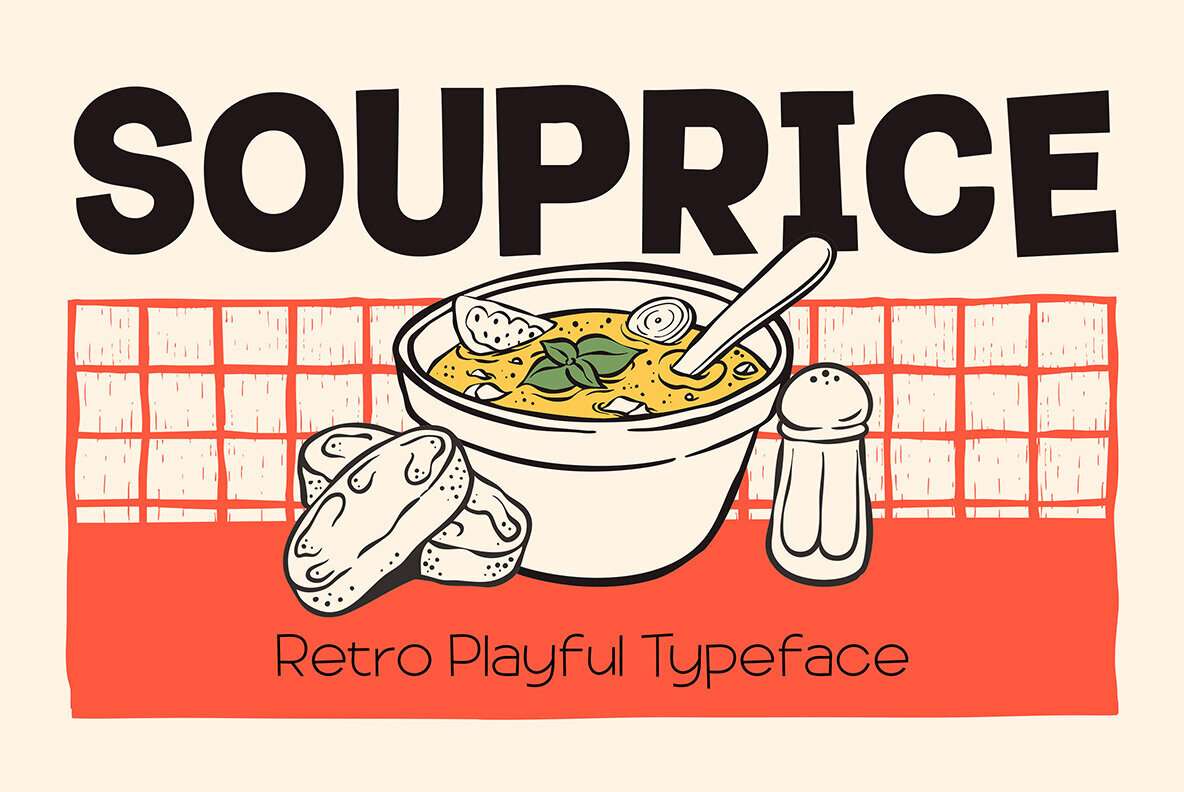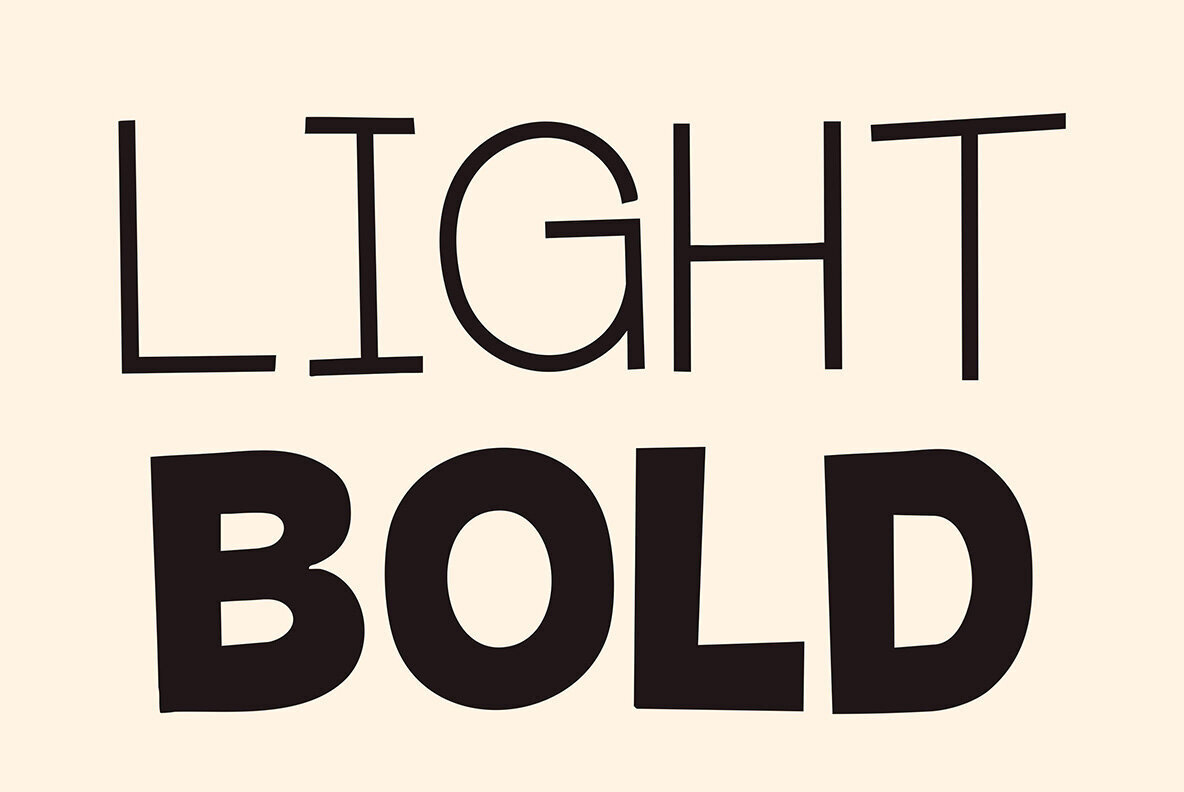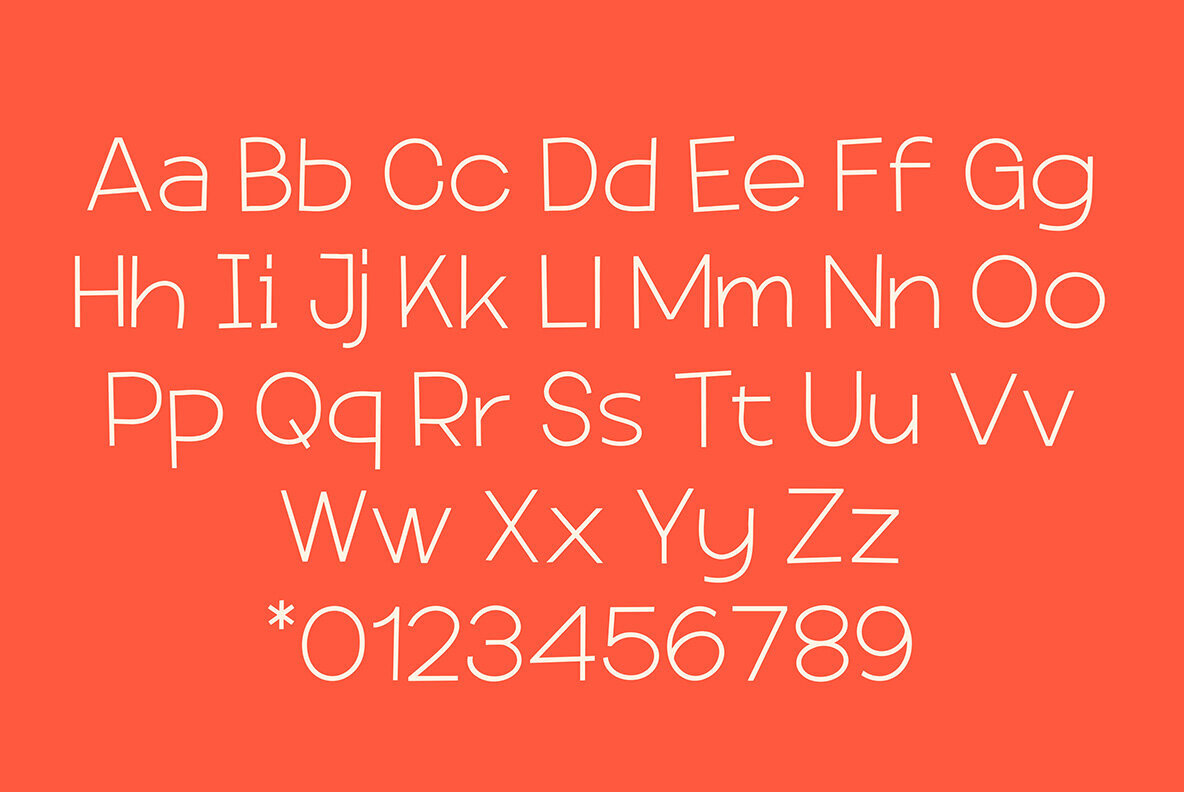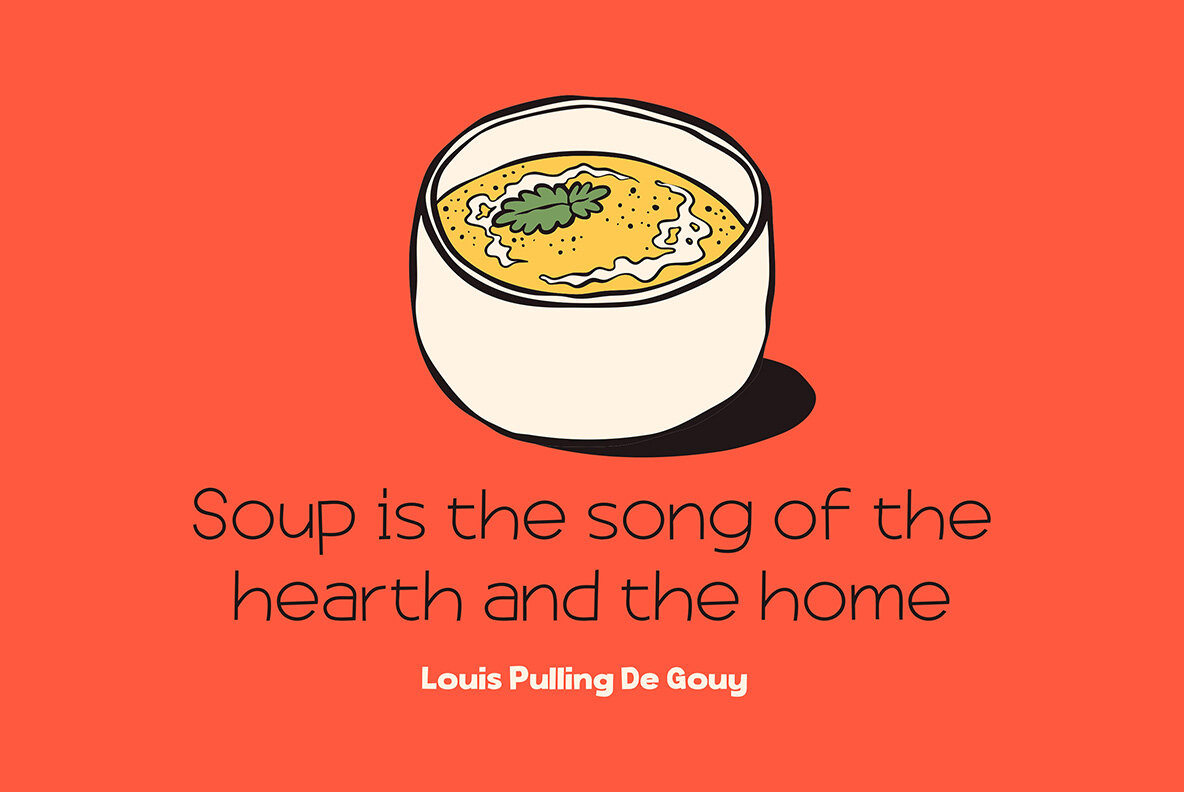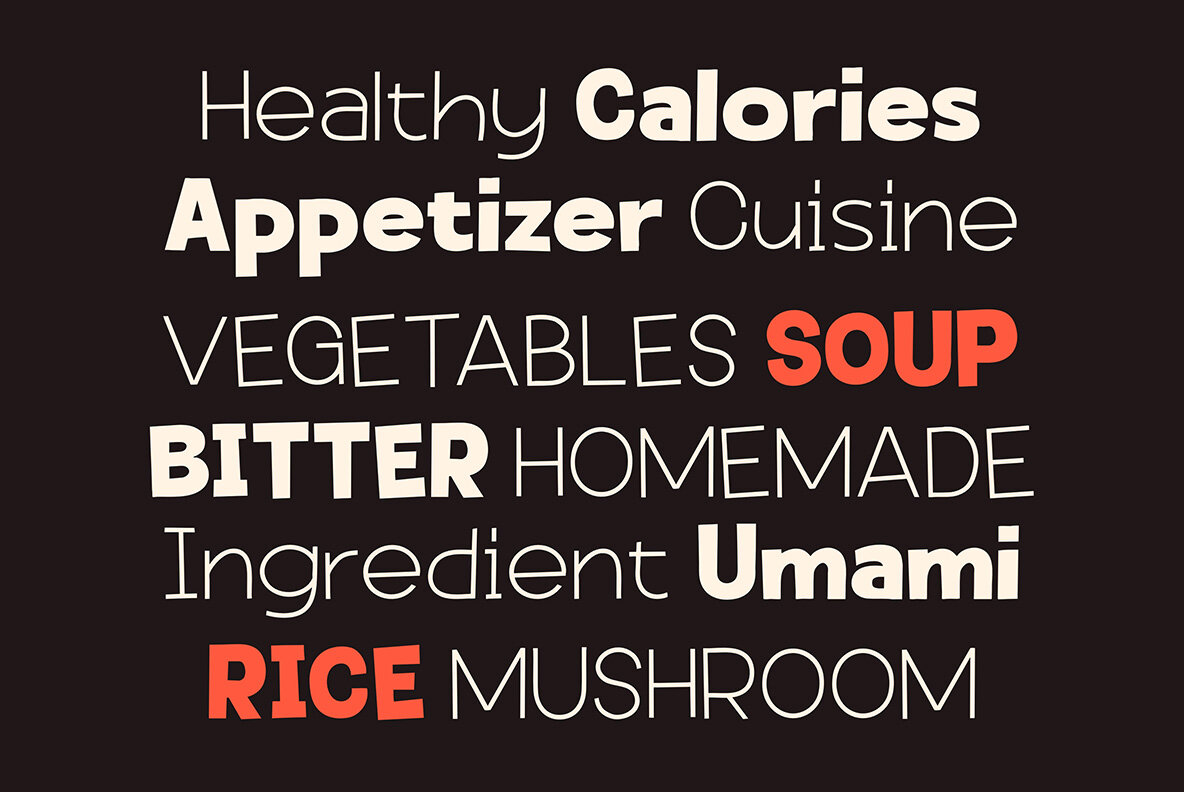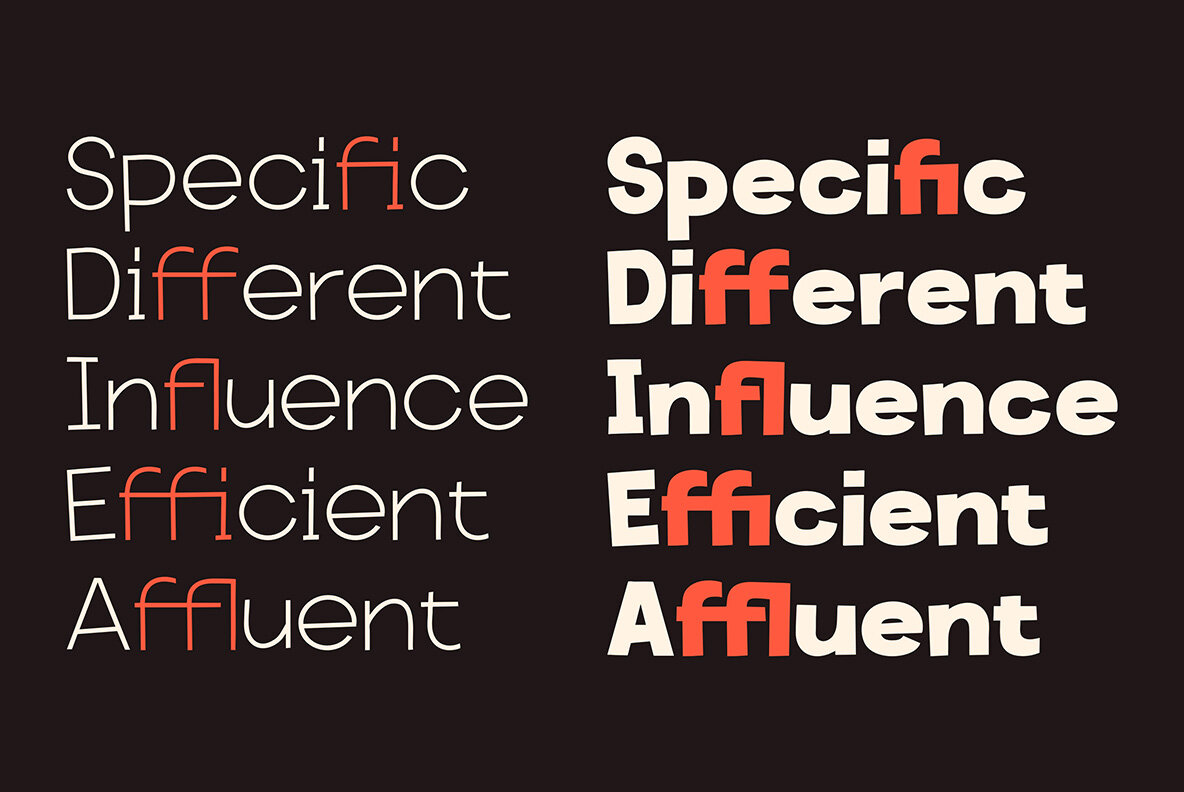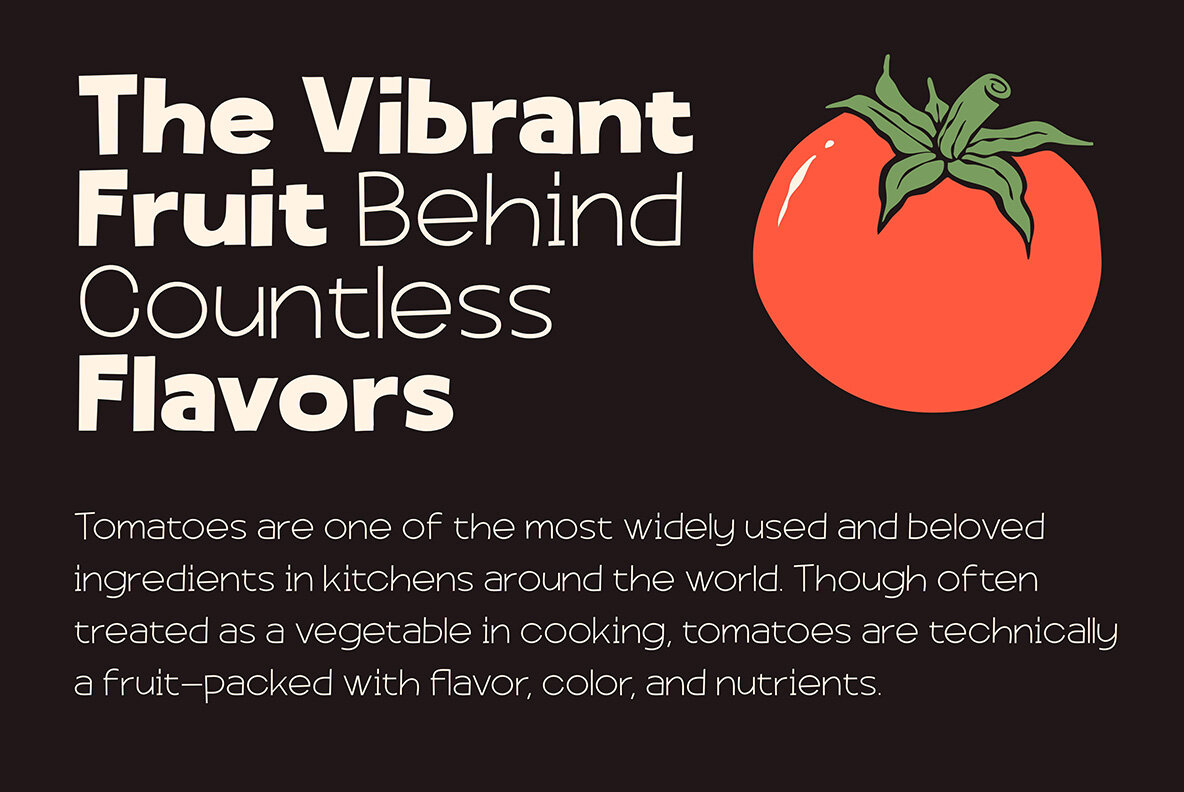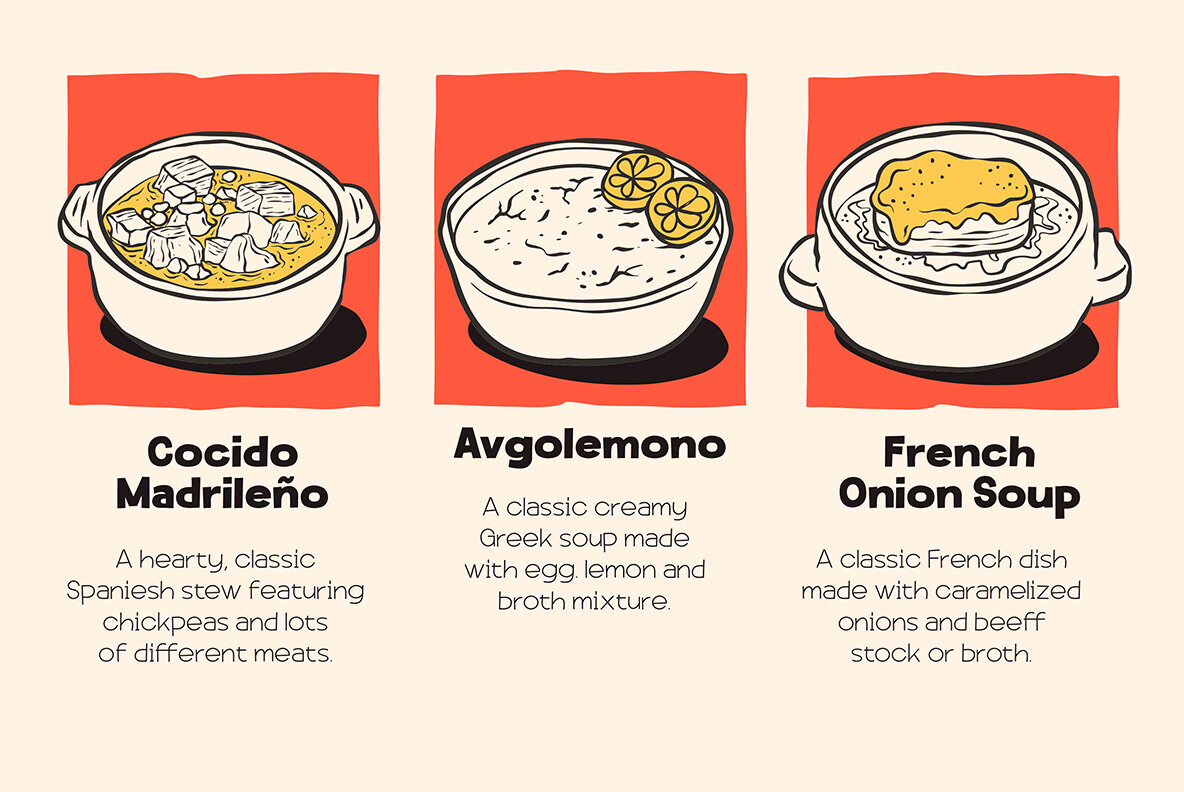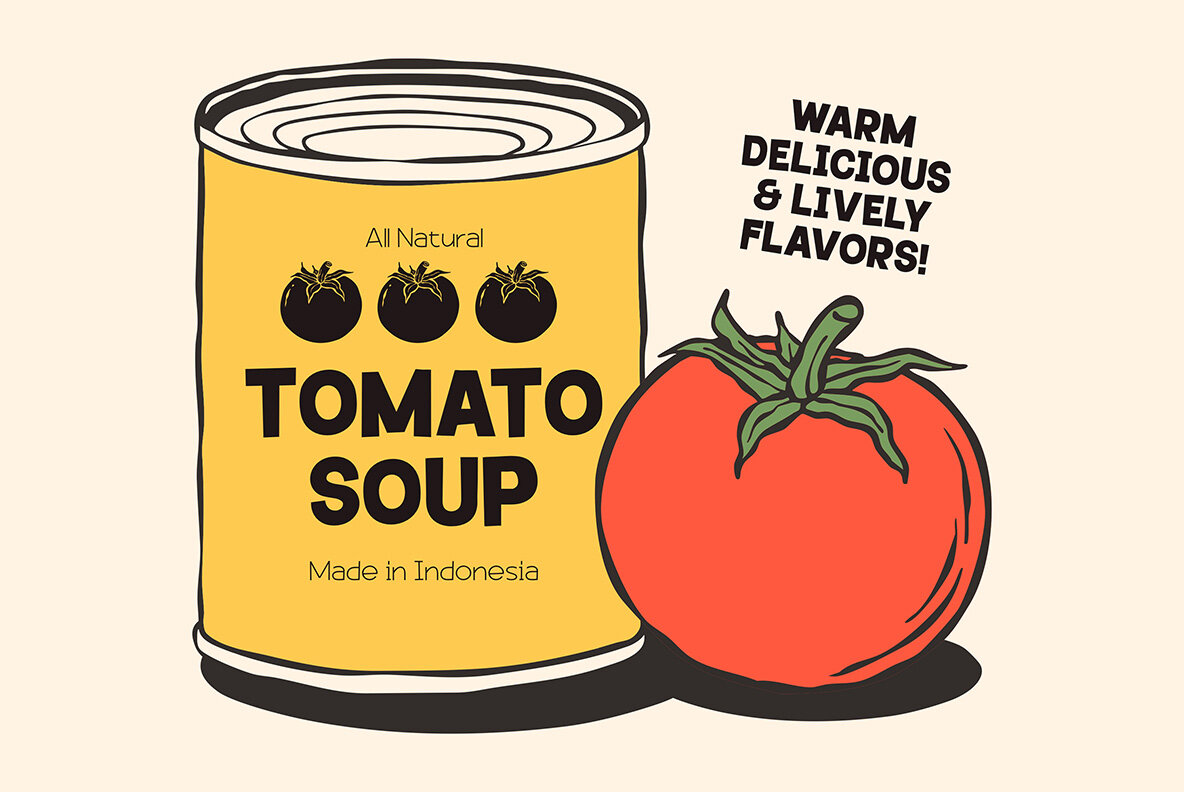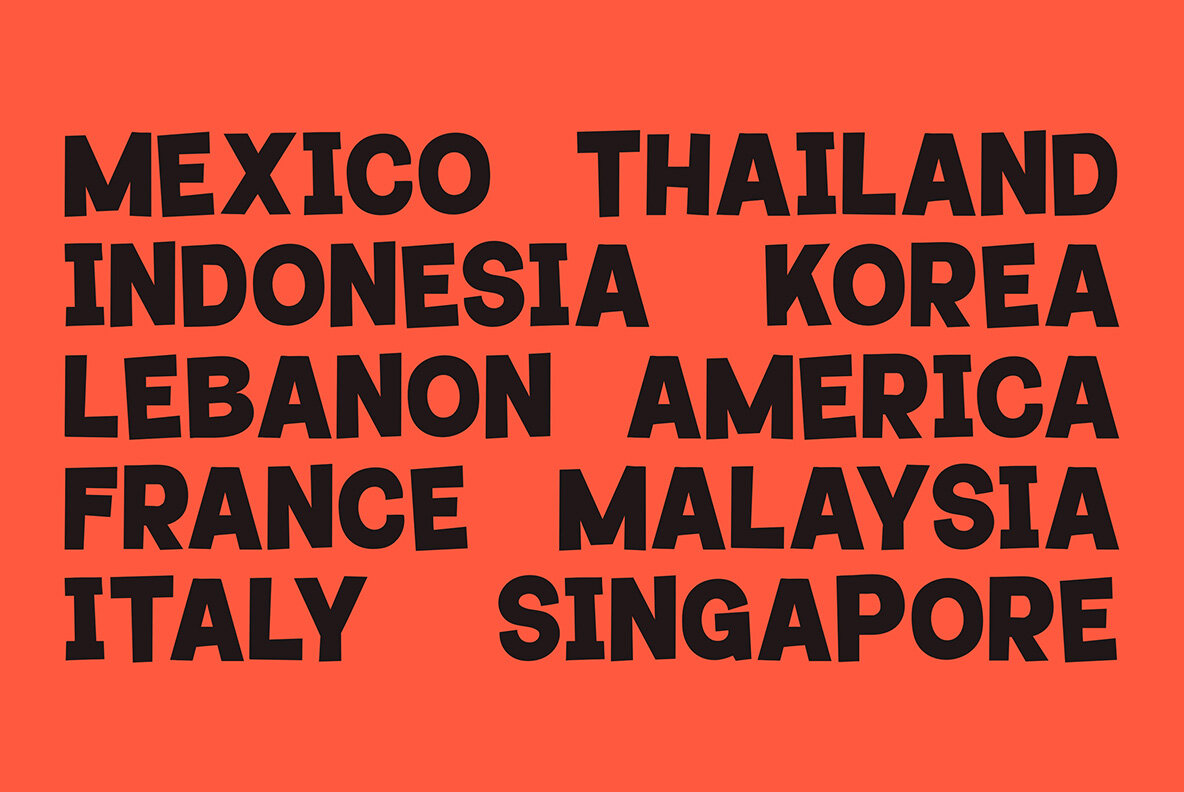
Souprice Font
Step back in time with Souprice, a retro typeface that blends nostalgia with playful energy. Hand-drawn to exude organic warmth, Souprice offers two styles—Bold and Light—that infuse your creative projects with personality and flair. It's an ideal choice for posters, packaging, or any design that seeks a vibrant, hand-crafted aesthetic. This versatile typeface excels in crafting retro-inspired designs including groovy posters, engaging advertisements, and standout packaging. Its unique touch is also brilliant for creating memorable titles and headings.Souprice: Nostalgic Typeface with Playful Charm
Pursue your creative visions with Souprice, a typeface that delivers both nostalgia and charm.